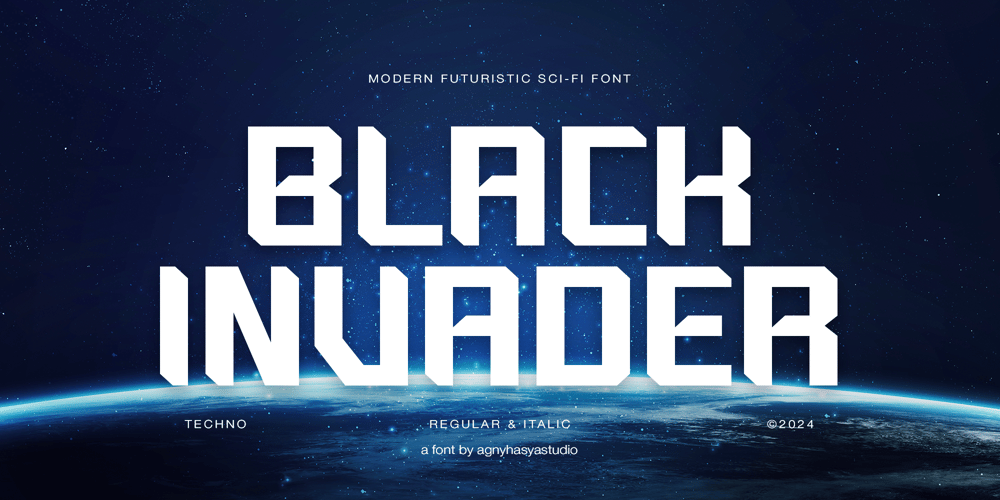
Black Invader Font Family was designed by Firman Maulana and published by Agny Hasya Studio. Black Invader contains 2 styles and family package options. Introducing Black Invader a Modern Futuristic Display Typeface. This modern, cutting-edge display typeface perfectly captures next-generation aesthetics.Its unique appeal makes it ideal for advanced technology, sci-fi concepts, eSports, gaming, robotics, and computing.It Also Supports Multilingual Characters, Making It Perfect for Use in Various Languages.It’s Perfect for Design Projects Such as Logos, Advertising, Branding, Posters, Banners, Product Designs, Special Events, and More.What’s Included: * Black Invader Files * Uppercase, Lowercase, Numeral & Punctuation * Alternates and Ligatures * Multilingual Support * PUA Encoded Characters * Works on both PC & MacGet it Now & Start Creating and Designing With Black InvaderThank You!